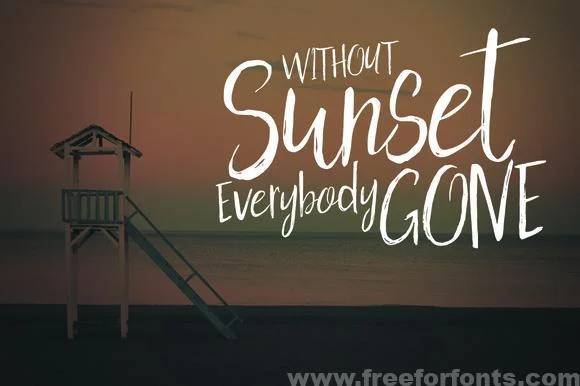
Holy Mountain Script Font Free Download
Holy Mountain Script Font is perfect for outdoor adventure branding, hiking trail guides, mountain resort logos, nature retreat marketing, wilderness expedition graphics, spiritual wellness centers, eco-tourism materials, climbing gear packaging, adventure travel blogs, and inspirational designs that celebrate natural beauty, spiritual connection, and the transformative power of mountain experiences.
This font is exciting because it captures the majestic grandeur and spiritual essence of mountain landscapes through flowing script letterforms that feel both grounded and elevated. The organic character design embodies the peaceful strength and timeless wisdom found in mountain environments, making it ideal for projects that inspire adventure, mindfulness, and deep connection with nature's most awe-inspiring terrain.
The Holy Mountain Script Font family typically includes uppercase and lowercase characters, numerals, punctuation marks, ligatures, stylistic alternates, decorative swashes, and nature-inspired ornamental elements that enable designers to create meaningful compositions with authentic outdoor spirit.
Whether you're designing for adventure tourism businesses, creating inspirational outdoor content, or developing brand identities for wellness ventures that celebrate nature's healing power, Holy Mountain Script Font Free Download provides the perfect typographic voice for mountain mysticism. Its flowing character and spiritual elegance make every project feel more connected and transformative, ensuring your designs beautifully convey adventure, peace, and the profound reverence for mountain majesty that calls wanderers upward.